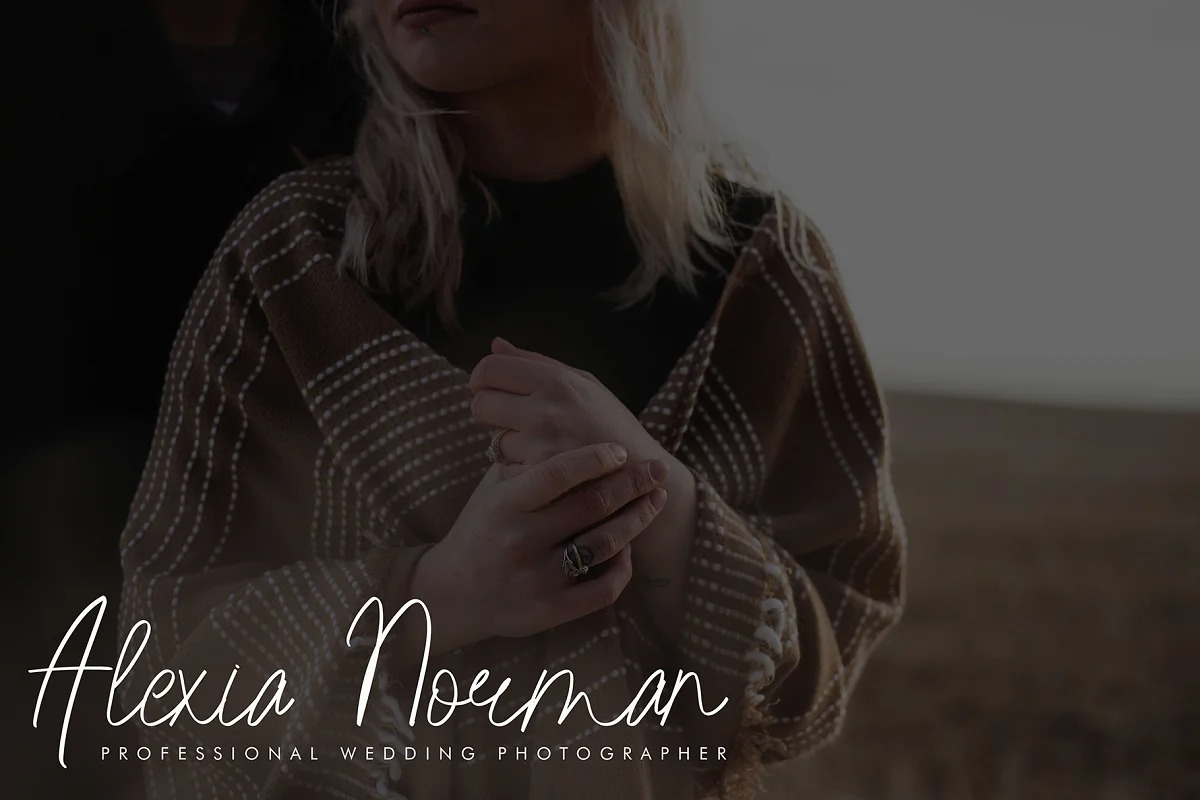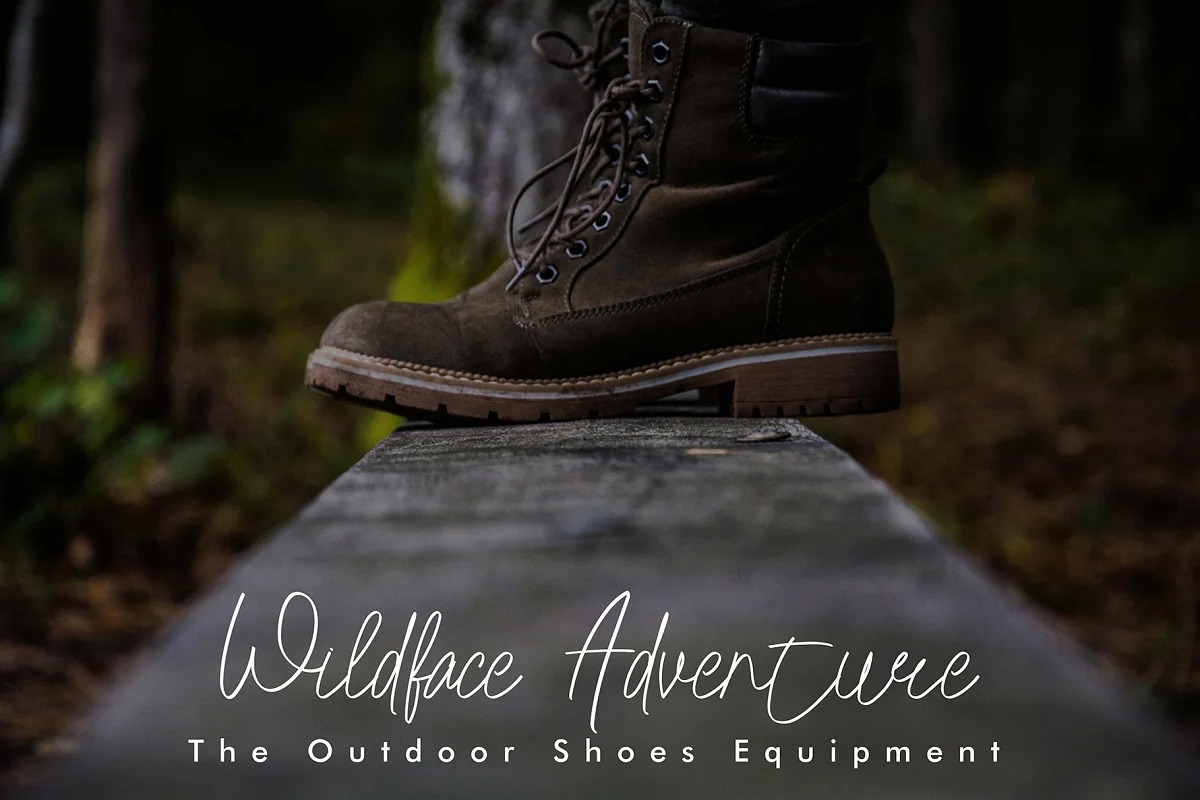
Alcantara Road Font
Alcantara Road Handwritten Font
If you’re looking for a luxury handwritten typeface to attract your audiences or customers then we’ve got the typeface for you! It’s a new modern & fresh script with a handwritten and script style make this font looks elegant, sweetness, natural, stylish and perfect for any awesome projects that need handwriting taste.
Alcantara Road would perfect for modern logos to instagram quotes, photography, watermark, social media posts, advertisements, logos & branding, invitation, product designs, label, wedding designs, wedding stationery, product packaging, special events or anything that need handwriting taste.